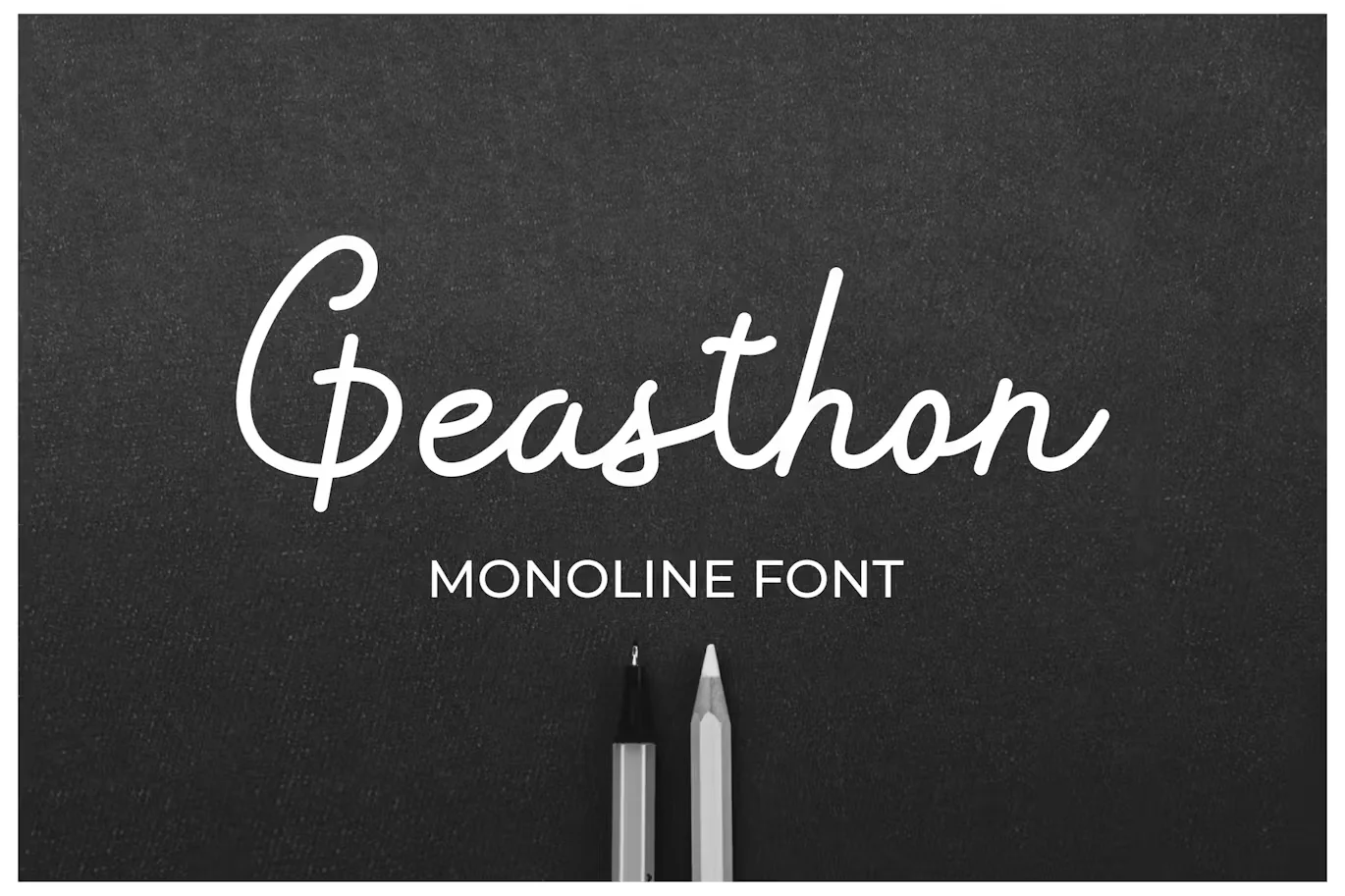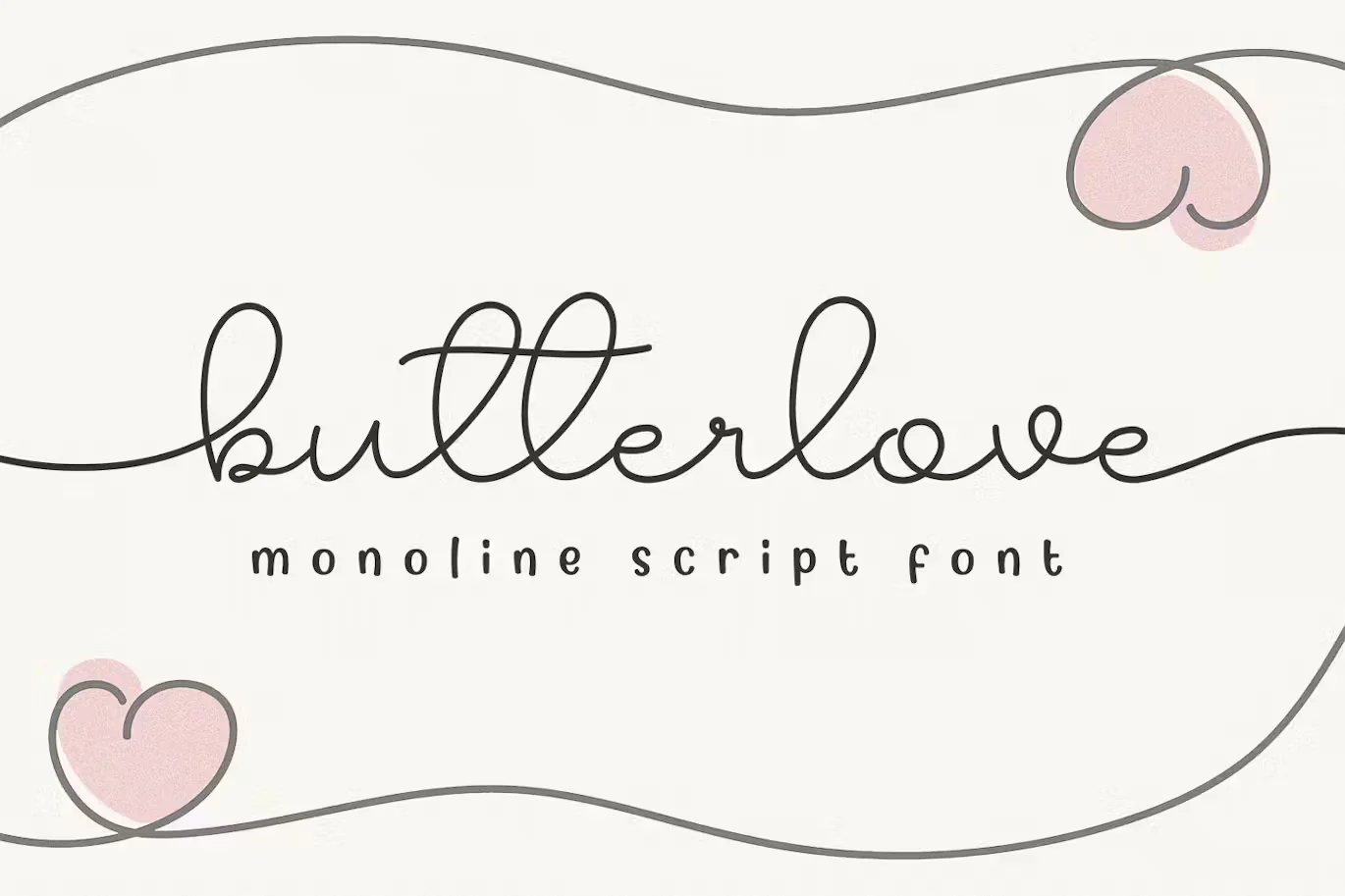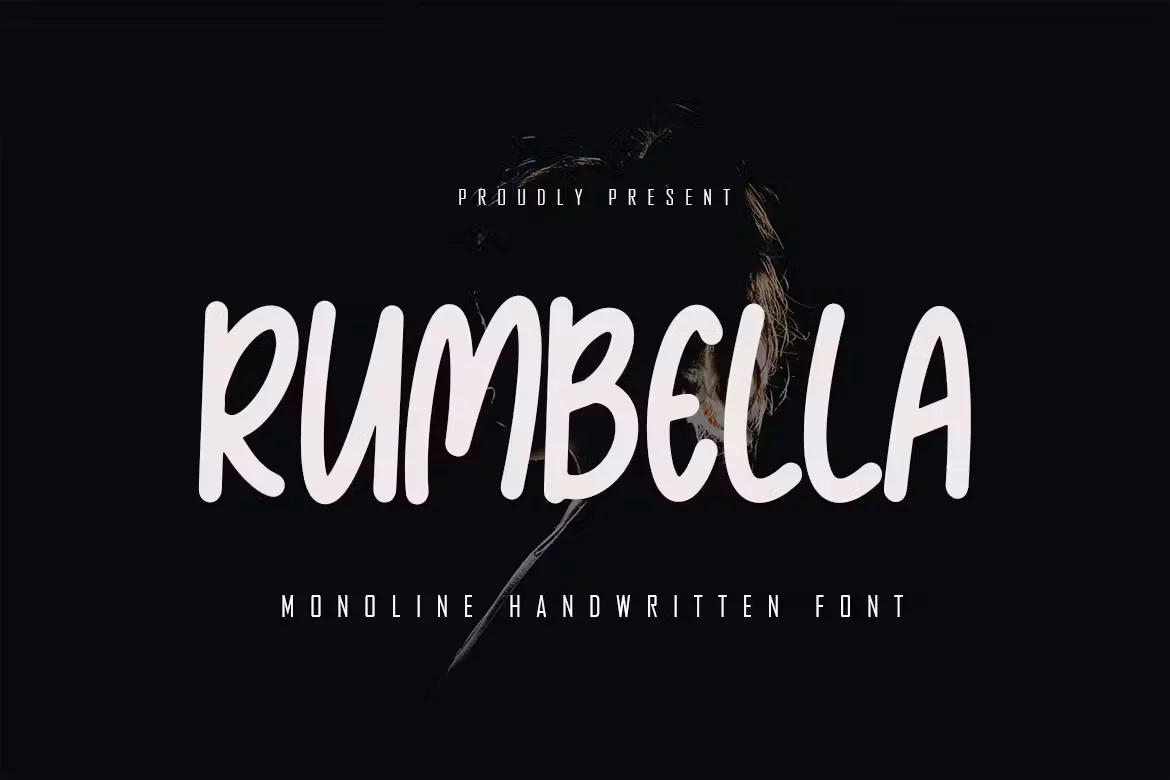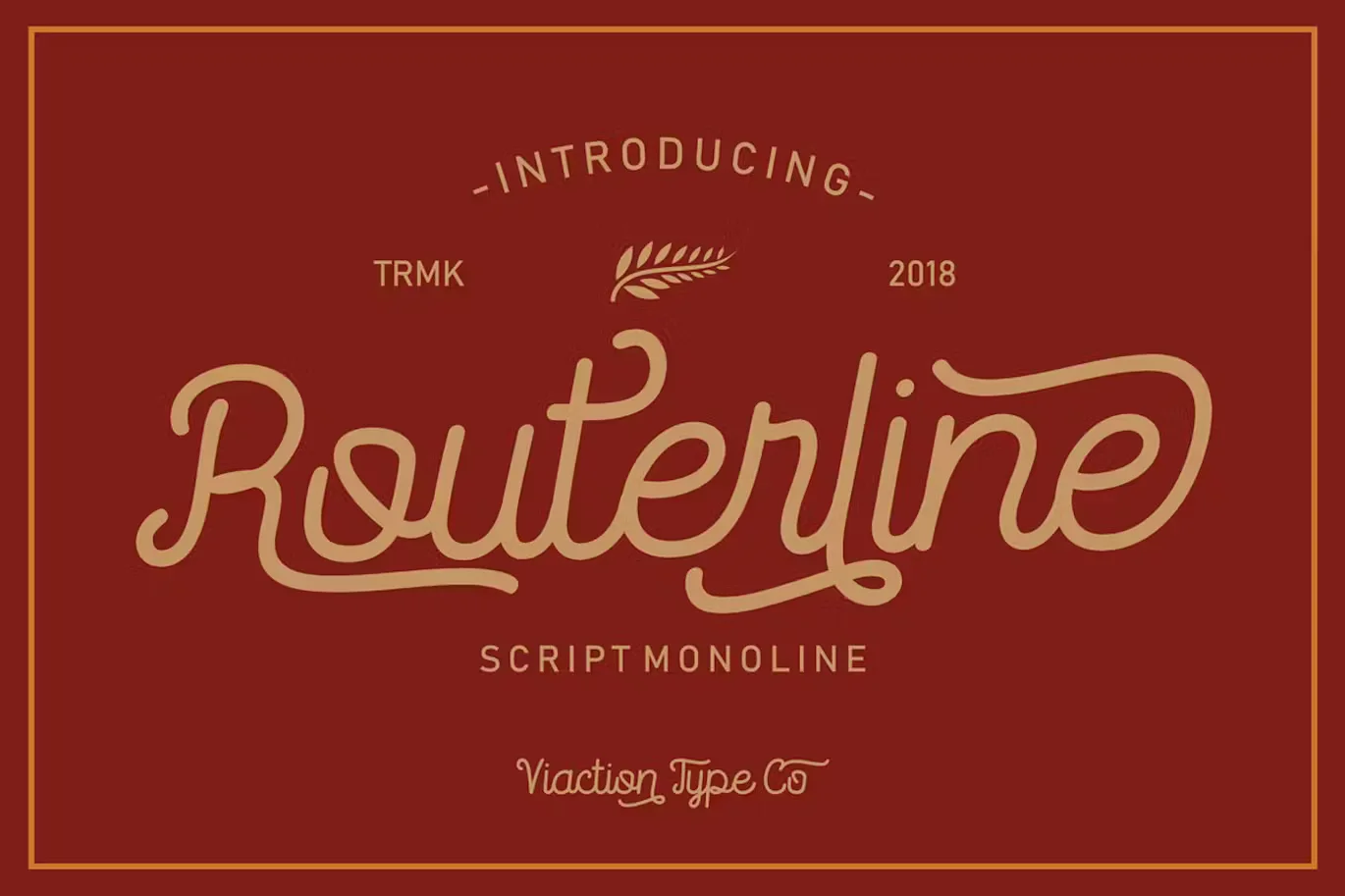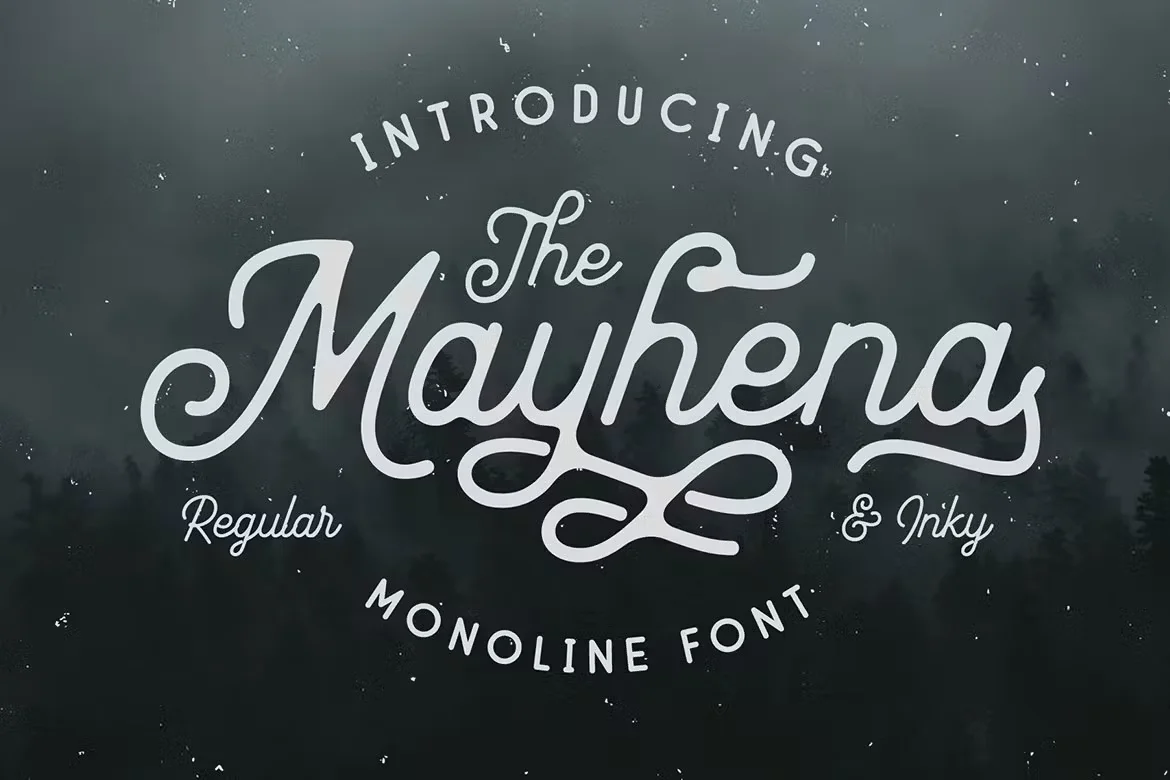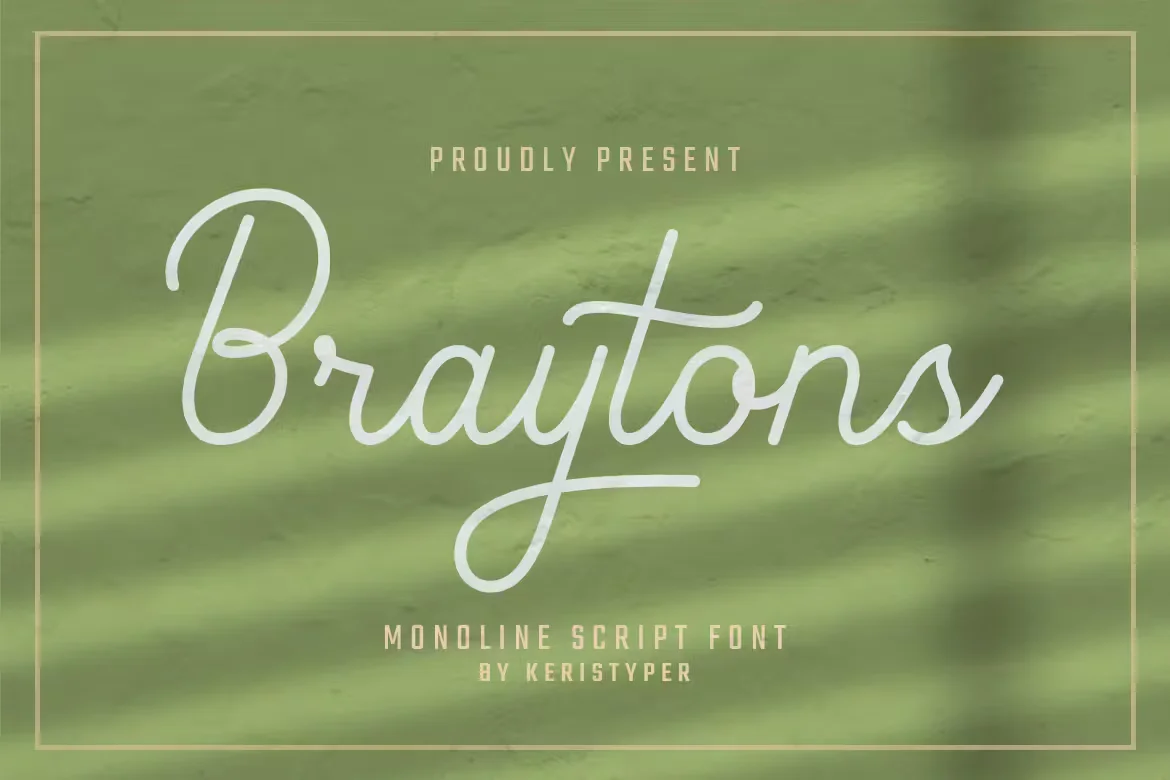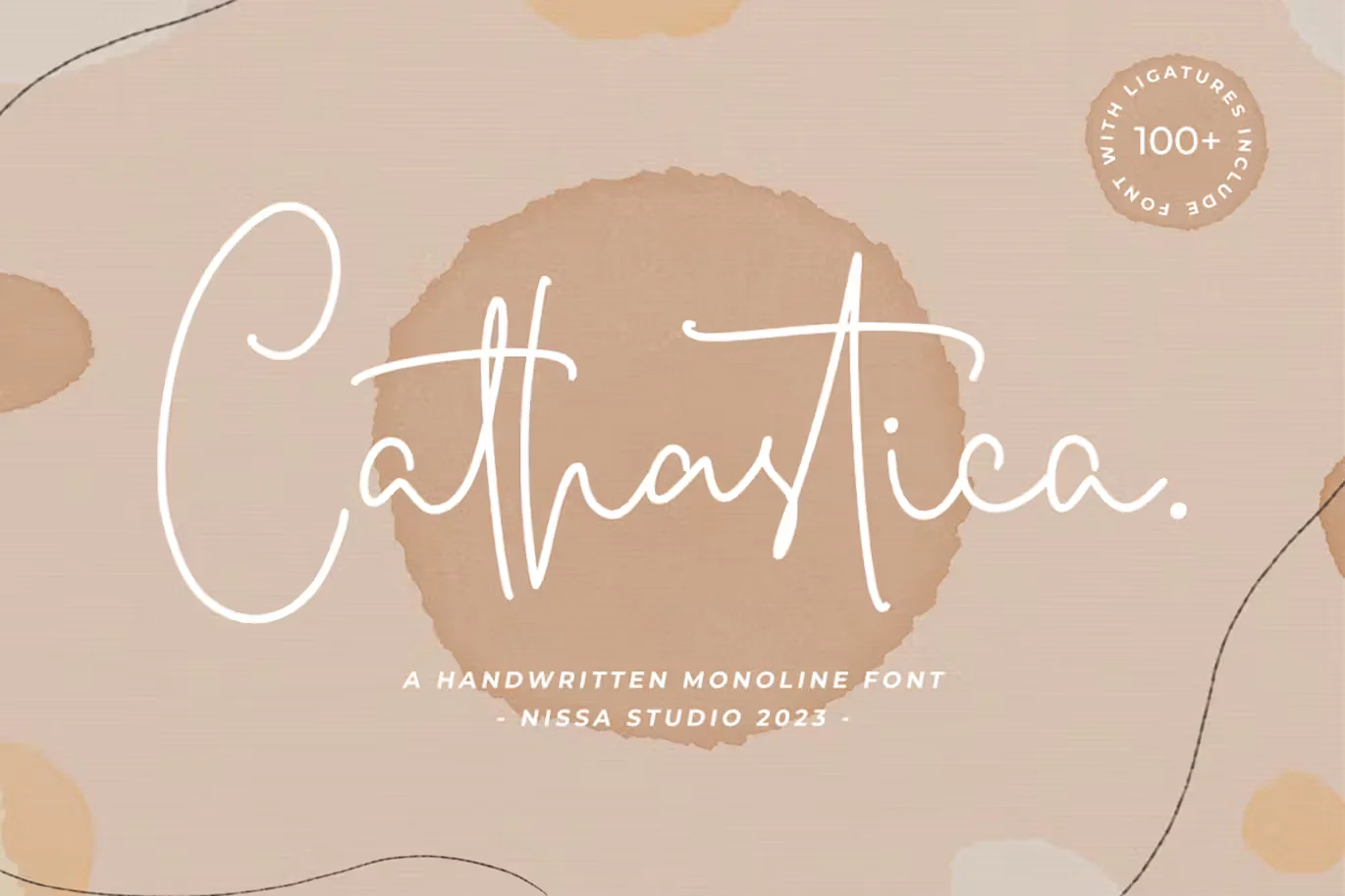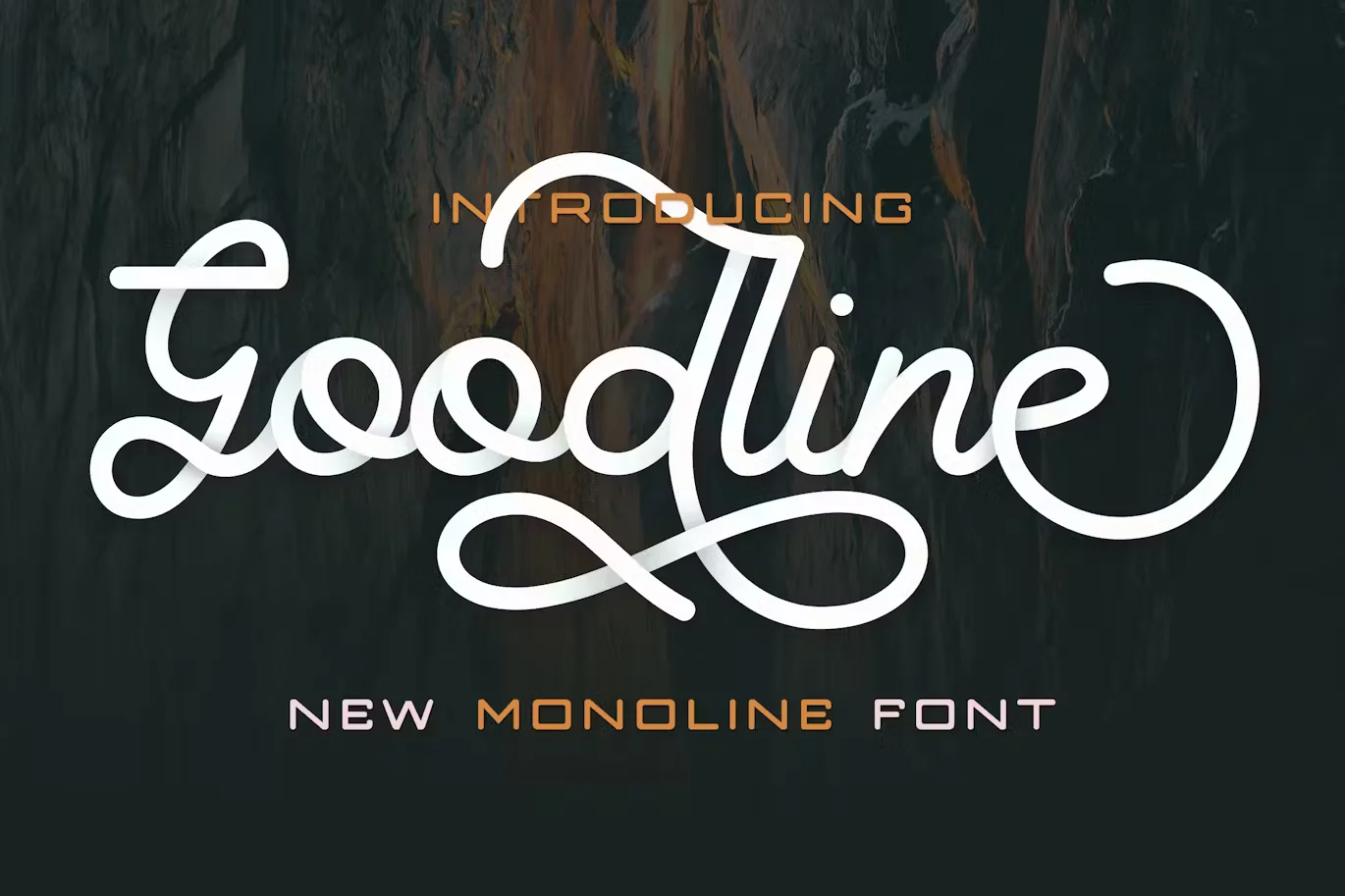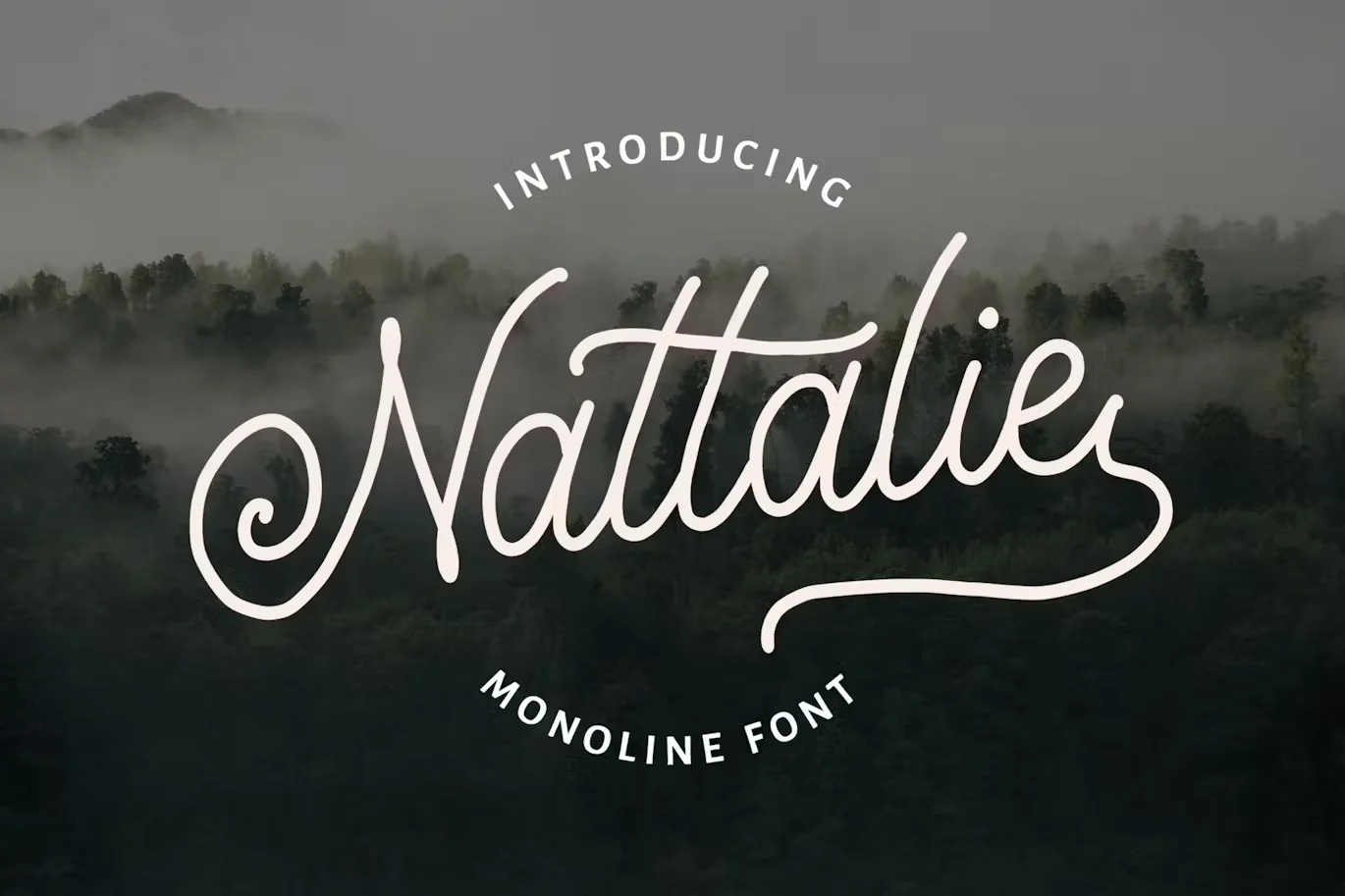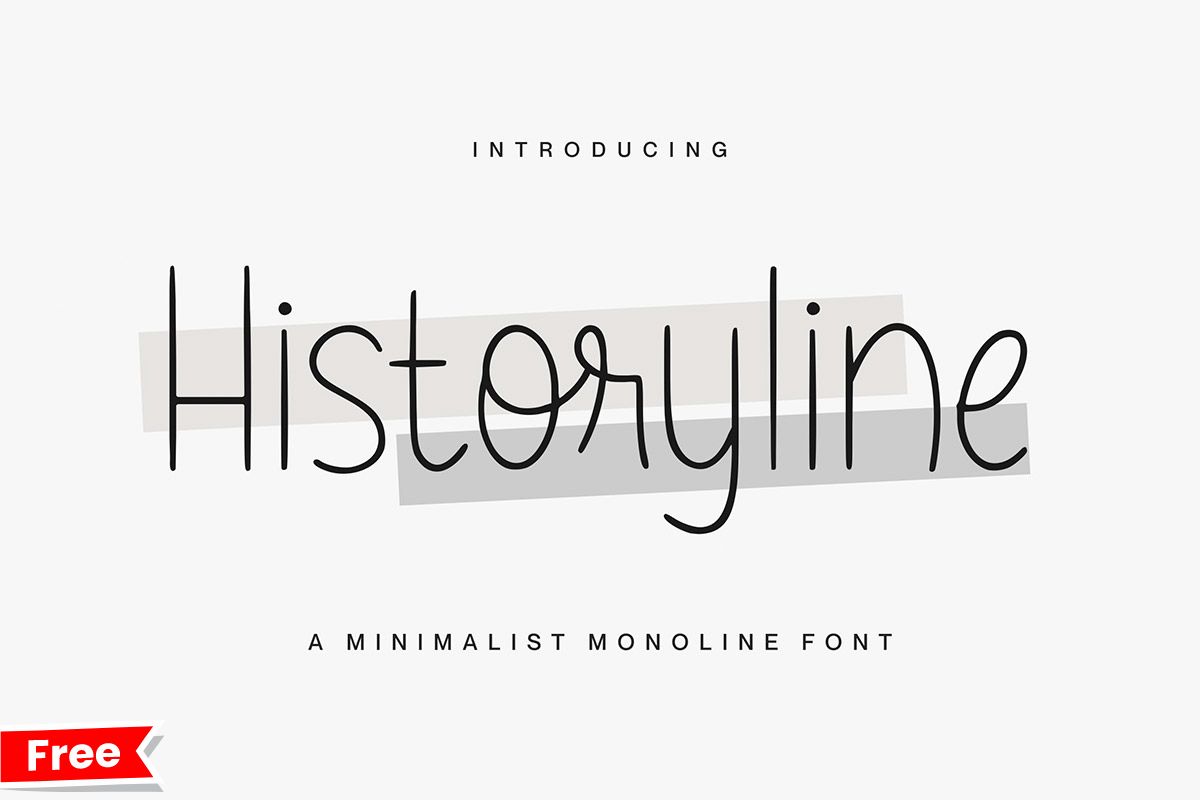
30+ Monoline Fonts That Are Simple, Clean, and Just Feel Right
There’s something really satisfying about monoline fonts. They’re neat. They’re balanced. And they have this calm, steady look that just works across so many styles.
Whether you’re designing a logo, putting together wedding invites, or just want your text to feel clean and personal at the same time, monoline fonts give you that nice in-between. Not too bold. Not too fancy. Just right.
In this list, you’ll find 30+ monoline fonts that are smooth, modern, and full of quiet charm. Some are more script-style, others are geometric and minimal. But all of them? Super usable.
- Branding and Logos
Monoline fonts are great for soft, modern brand vibes — especially for fashion, wellness, or creative businesses. - Invitations and Stationery
Add a handwritten touch to wedding invites, baby showers, or event designs without going over the top. - Social Media Posts
Keep your posts clean and stylish, especially for quotes, reels, and highlight covers. - Product Labels and Packaging
Works really well on candles, skincare, handmade goods, or small batch packaging. - Website Headers or Blog Graphics
If you want your site to feel minimal but still have some personality, these fonts are a great pick.
Geasthon – Monoline Font
Geasthon – Monoline Font, So beautiful on invitation like greeting cards, branding materials, business cards, quotes, posters, and more!
Hafiza Monoline Font
Introducing of our new product the name is Hafiza. inspired by signature and stylish handwriting, Hafiza is good for logotype, wedding invitation design, badge, headline, signature, packaging and any more.
Butterlove monoline font
Introducing the new “Butterlove” font, a monoline script font. For those of you who are needing a touch of clean monoline handwritten Font, chic and modernity for your designs, this font was created for you!
Rumbella – Monoline Font
Rumbella is a Monoline Playful font, crafted to give your headlines and logotype projects a stylish touch. This font reads as strong, confident, and dynamic and can add tons of urban character to your designs.
Routerline Monoline Font
Routerline is a script monoline with 4 styles, nice applied in various products. Complete with multilingual characters, ligature and alternate. It is suitable for quote, clothing design, vintage logo, label, poster, packaging design and other designs.
Mayhena Monoline Font
The connected monoline font with vintage looks. Comes in Regular and Inky style that you can use to create beautiful vintage typography on any project like t-shirt, merchandise, logo, insignia, label, poster, magazine, packaging, quotation, and more.
Braytons Monoline Font
Braytons Script is a flowing monoline handwritten font, described by an elegant touch, perfect for your favorite projects. Fall in love with its incredibly distinct and timeless style and use it to create spectacular designs!
Cathastica – Monoline Font
Cathastica is a beautiful and delicate handwritten font with a unique feel and a stunning impact. It will add a luxury spark to any design project that you wish to create!
Goodline – Monoline Font
Goodline is clean version of my other rough version. A simple monoline font with many alternative characters and ligatures. Combined with some swashes so you can play and create something awesome. Very suitable to use on your logotype project, poster, tshirt, branding, greeting cards, badges, ect.
Modern and Minimalist Monoline Fonts
Olesivo | Monoline Font
Olesivo Font, unique monoline font with many alternate simple and elegant. perfect for quotes, logo, wedding invitation, and much more.
Nattalie Monoline Font
Nattalie Monoline Font is typeface was inspired by handwriting using pen. This font is suitable for wedding invitations, design, logo or branding, or as the font for the typography. Many features in this font such as ligatures, stylistic alternate, swashes, etc.
Historyline Monoline Font
We are very happy to share Historyline Monoline Font, a minimalist, thin lettered and delicate handwritten font which has a clean, thin and smooth vibe and it will be a hit for any design that you want to add it to.
Classical and Script Monoline Fonts
Manteman Monoline Script Font
Manteman Monoline Script Font was inspired by vintage style typography combined with modern typography style. Manteman Font is great for logotype, branding design, logo design, digital lettering arts, t-shirt/apparel, poster, magazine, advertising design, and any vintage design needs.
Memory of 2018 Monoline Calligraphy Font
Memory of 2018 Monoline Calligraphy Font is an elegant and creative handwritten font. It contains uppercase, lowercase, numbers, symbols and supports multilingual. It is great for wedding, feminine designs, logos, branding, fashion and apparel, and other beautiful artworks.